21 Essential Choices for the Best Font Style on Your Website
Finding the best font style for a website can feel overwhelming, but it’s a crucial decision. The right font does more than just display text; it sets the tone for your brand, improves readability, and creates a professional and engaging user experience. This guide will walk you through 21 exceptional font choices.
21 Best Font Style Ideas for a Website
Finding which font style is best for a website is a journey of trial and error. The fonts you pick need to be unique and easy to read. This list will help you navigate this important choice and find the perfect font for your brand.
1. Raleyss
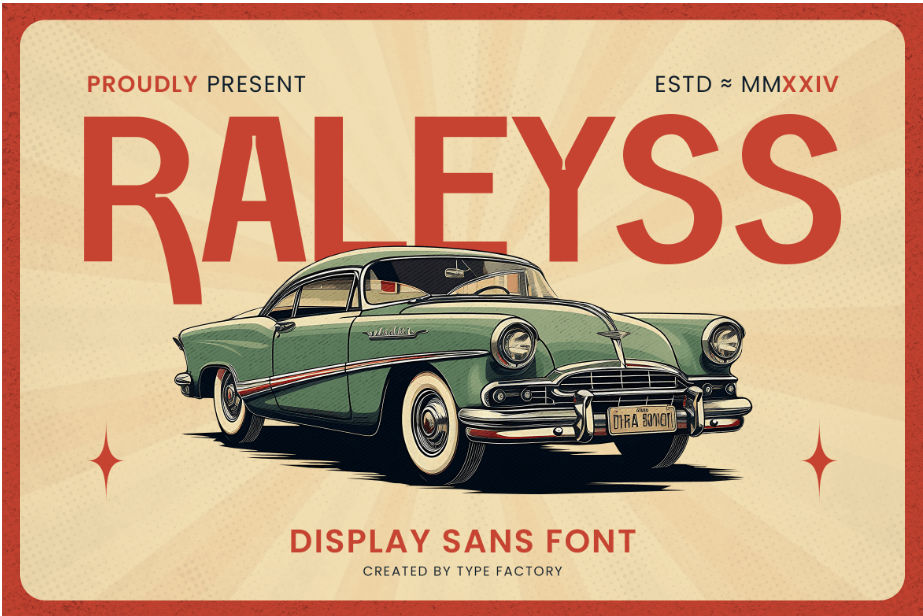
Raleyss is a retro display sans font that brings a playful, nostalgic energy. Its bold letterforms and charming curves make it an excellent choice for a creative blog or a website for a vintage-inspired brand.
2. Rowderby
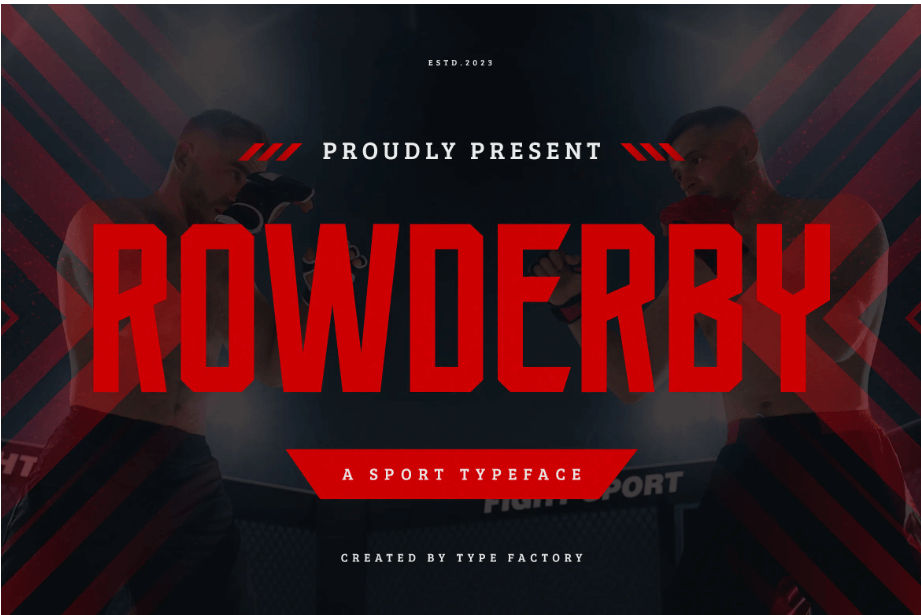
Rowderby is a dynamic sport typeface, ideal for websites in the athletic or fitness industry. Its sharp lines and energetic feel make it the best font style for website header on a sports blog, team portfolio, or athletic brand’s homepage.
3. Craftico
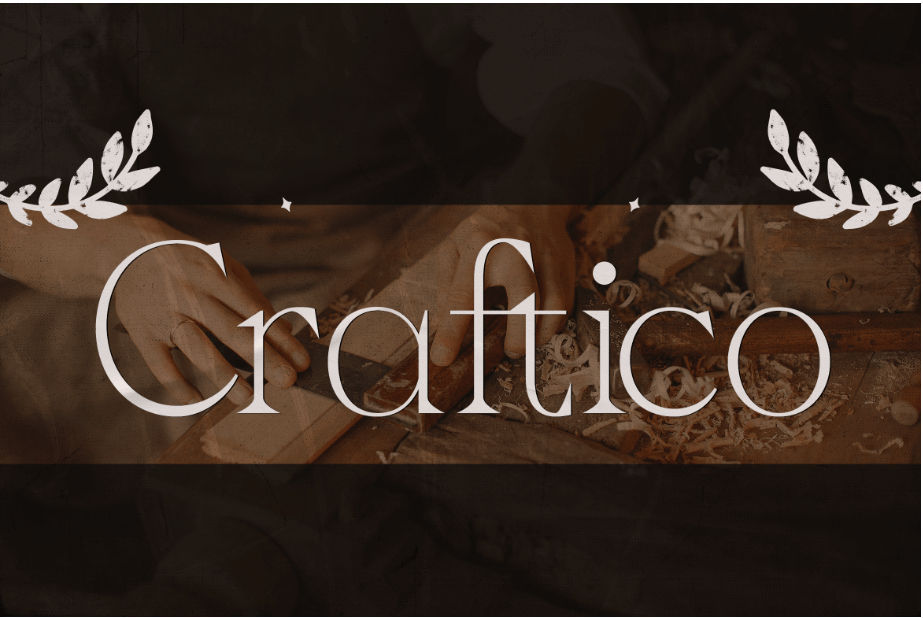
Craftico is an elegant serif font that exudes luxury and grace. With its delicate serifs and sophisticated lines, it’s a perfect choice for high-end fashion, wedding planning, or beauty websites.
4. Kleafia
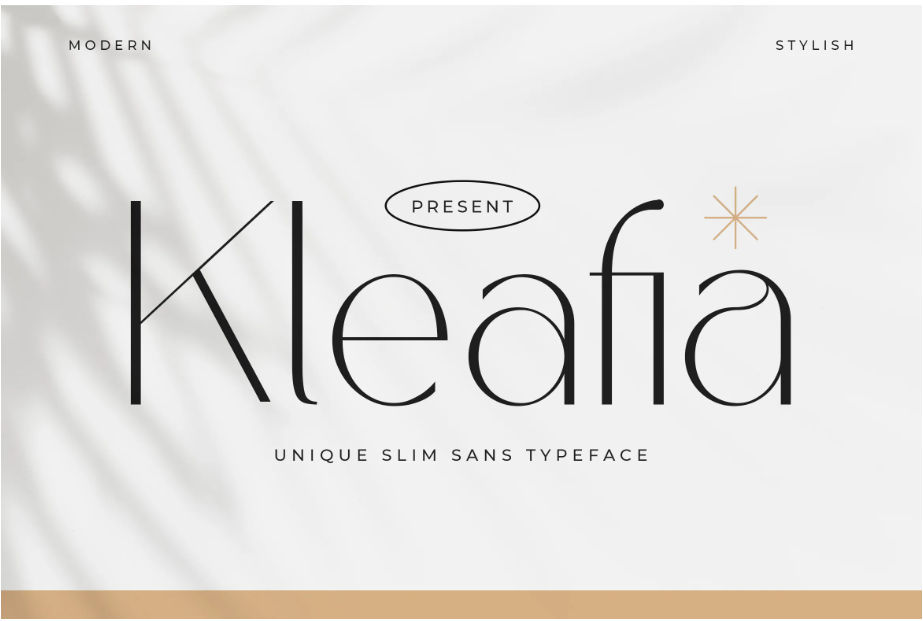
Kleafia is a unique slim sans typeface that offers a modern and elegant touch. Its sleek and slender proportions make it ideal for minimalist portfolios, modern design studios, or websites that want a clean, sophisticated aesthetic.
5. Monkins
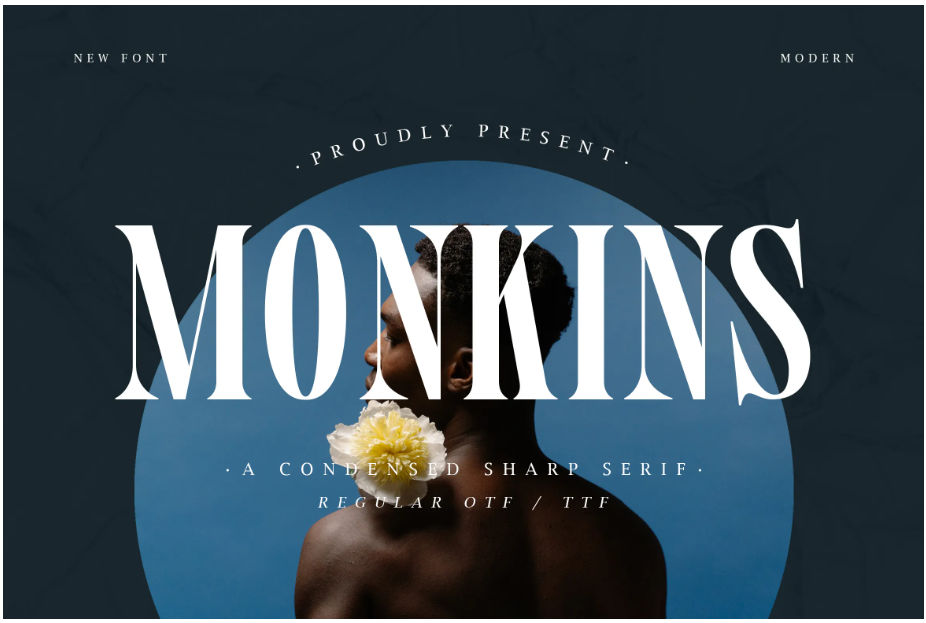
Monkins is a condensed sharp serif font that balances elegance with precision. Its clean, defined letterforms are perfect for editorial websites, corporate blogs, or luxury branding.
6. Charmont
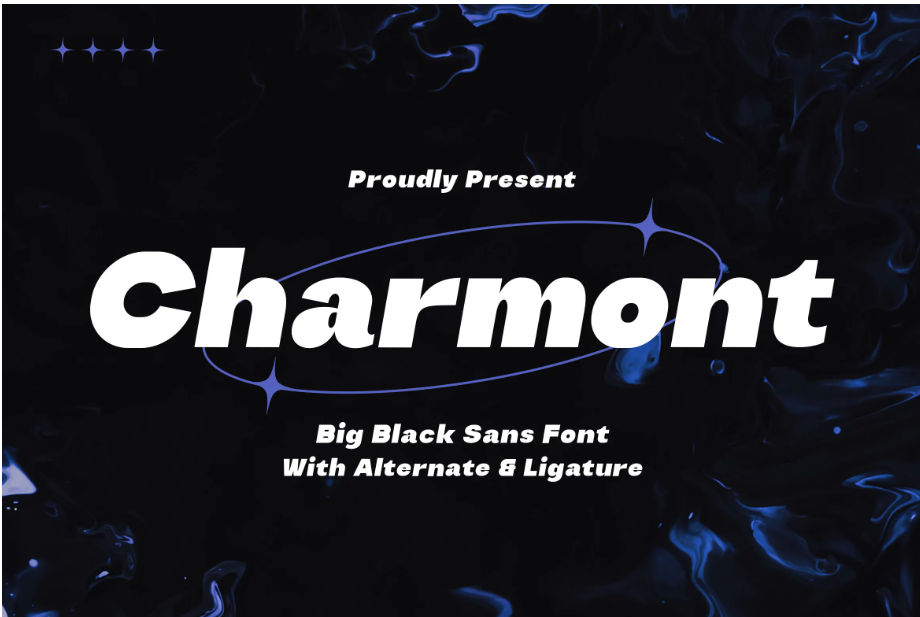
Charmont is a bold and powerful big black sans font. It’s perfect for websites that need to make a strong statement, such as a rock music blog or a brand with an aggressive marketing campaign.
7. Rowlane
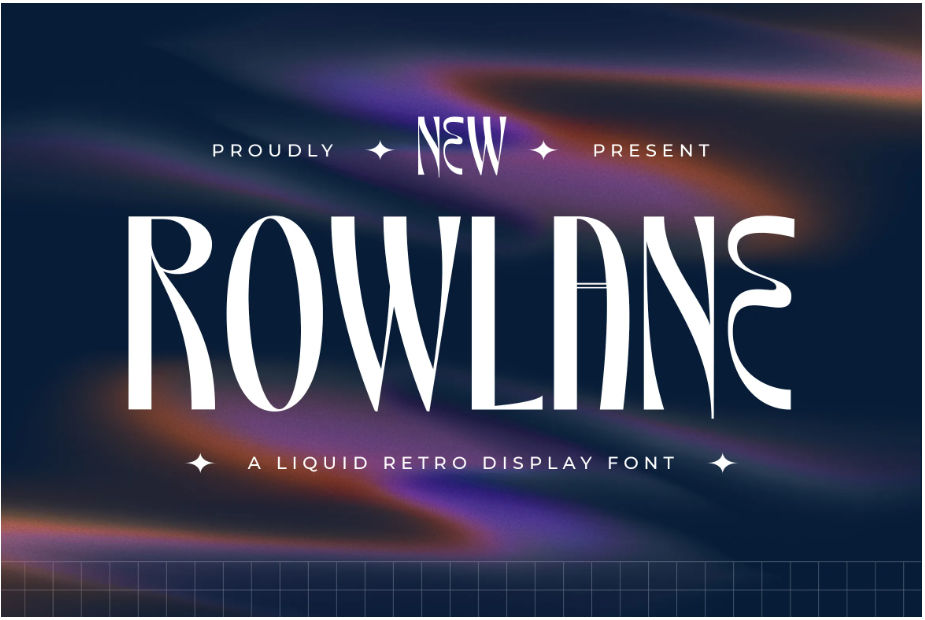
Rowlane is a dynamic digital font that blends liquid typography with retro design. This eye-catching style is fantastic for websites in the art or creative industries, adding a unique, flowing feel to headlines. Rowlane is the best font style for a website, a great choice for those who want their site to stand out with a creative, retro vibe.
8. Brillant
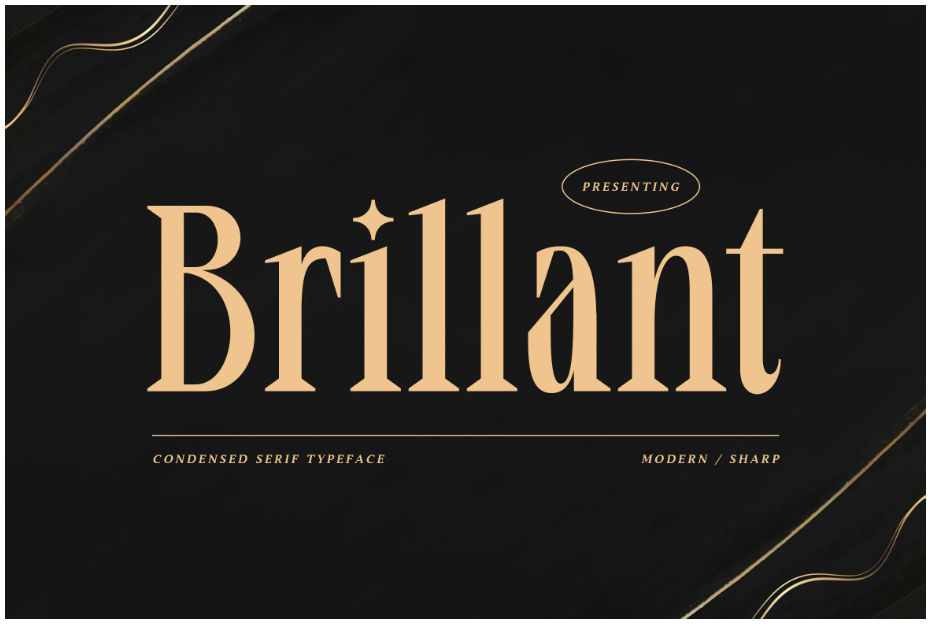
Brillant is a sleek, modern condensed serif typeface. Its clean lines and elegant curves make it a solid choice for a fashion brand, a sophisticated blog, or a corporate website.
9. Cerveza
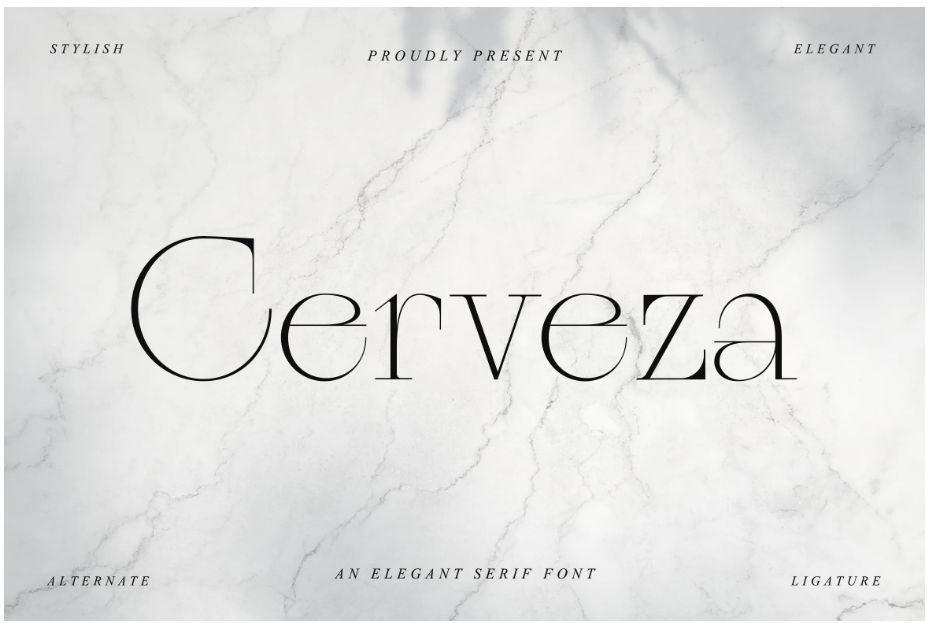
Cerveza is an elegant serif font with graceful curves and a timeless design. This font style is best for a website that wants to convey a sense of classic refinement, like an online antique store or a formal event planning service.
10. Maguire
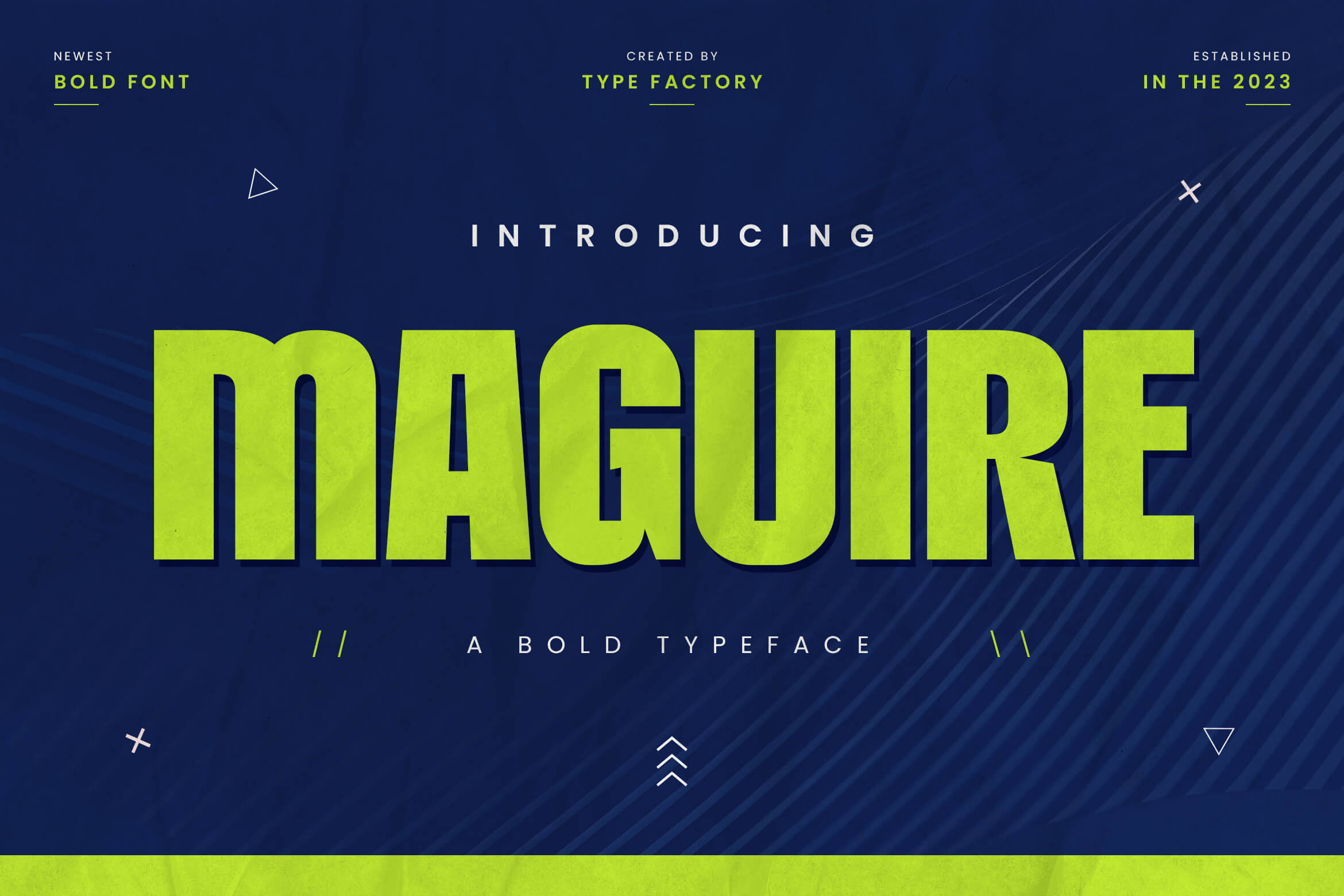
Maguire is a condensed sans-serif font with a heavy, impactful style that’s perfect for conveying a sense of innovation, strength, and confidence. It’s an excellent choice for headers and titles on websites for tech, creative studios, and fitness brands.
11. Ramphele
Ramphele is a mixed-width typeface with a modern feel. Its unique character set makes it versatile for a variety of uses, including website headers. This font is a great option for a creative agency or a personal portfolio that wants to showcase a contemporary and dynamic aesthetic.
12. Unbound
Unbound is another mixed-width typeface that is excellent for headlines. Its modern design makes it the best font style for an e-commerce website.
13. Velocity
Velocity is a modern condensed humanist sans typeface that embodies speed and clarity. Its streamlined forms are perfect for tech companies, modern startups, or professional service websites.
14. Street Sink
Street Sink is an eye-catching graffiti font, perfect for capturing the spirit of urban street culture. This font is a great choice for websites related to streetwear, music, or art.
15. Rombucha
Rombucha is an elegant serif typeface with a modern charm. It’s the perfect choice for high-end branding and luxury product websites.
16. Pennies
Pennies is a playful and quirky serif typeface that adds a fun, whimsical touch. This font is ideal for websites for children’s brands, creative blogs, or anything that needs a dash of personality.
17. Protego
Protego is a distinctive sans display typeface with a unique flair. Its bold lines and geometric shapes make this the best font style for a website, perfect for creating attention-grabbing headlines and digital designs.
Ready to Transform Your Site?
While there’s no single answer to “what is the best font style for a website,” the choice ultimately depends on your brand’s personality and goals. Remember to consider readability, consistency, and how the font looks on different devices.